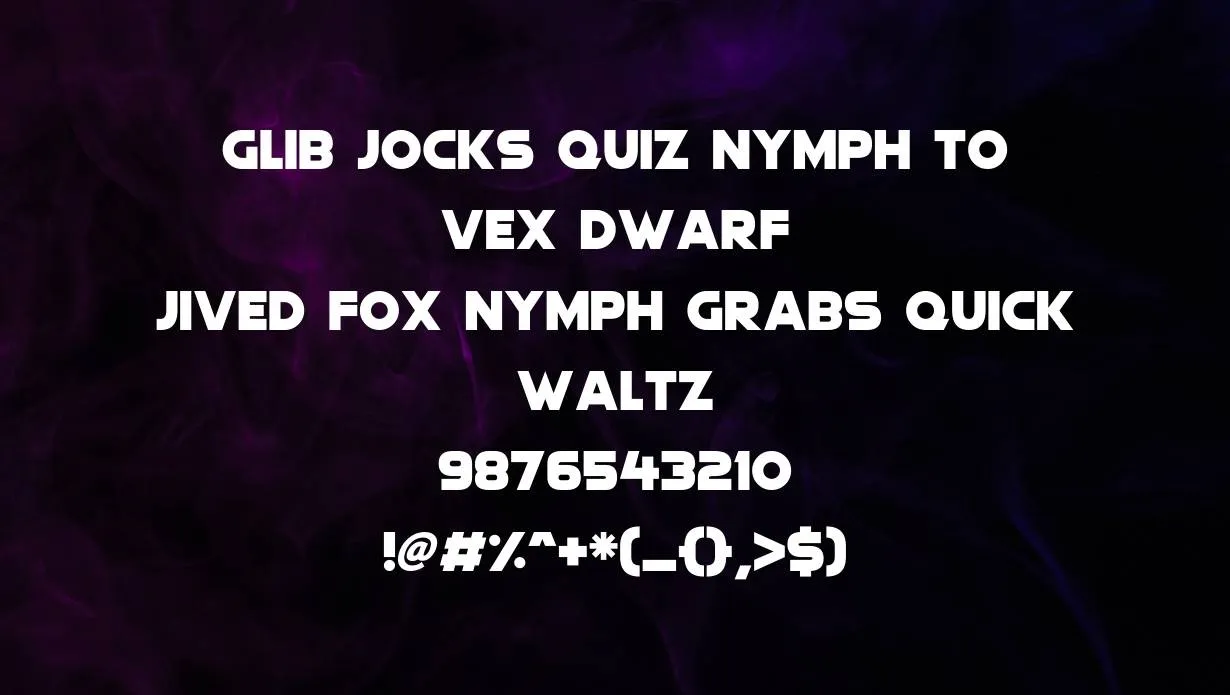
The Quicksilver Font is a popular font that has been used by many designers over the years. The font has a unique look that makes it stand out from other fonts, and it has a history that is interesting to explore.
The Quicksilver Typeface was created by designer Johnathan Barnbrook in 1997. Barnbrook was inspired by the work of German artist Peter Max, and he wanted to create a font that had a similar feel. The Quicksilver Typeface is a sans-serif Typeface, which means that it does not have the decorative elements that many other fonts have. This makes the font very easy to read, and it also gives it a clean look.
The Quicksilver Typeface is also very popular with designers, and it has been used in many different design projects.
Who Used Quicksilver Font?
This font is commonly used in advertising and media. It was created in the late 19th century by an American-type foundry. The name Quicksilver comes from its silver color. This font is also known as Zephyr or Geometric.
Quicksilver has a unique design that sets it apart from other Typefaces. Its thin strokes and sharp edges give it a modern look. Quicksilver is perfect for headlines and other short text. It can also be used for longer blocks of text, but it may be difficult to read. You can also try blueberry sans font a sans serif typeface with the same matching appearance and has a pairing feature with another bunch of typefaces as well.
Quicksilver Font Family Appearance
| Name | Quicksilver Font |
| Designer | Johnathan Barnbrook |
| Style | Sans Serif |
Is Quicksilver Fancy font?
No, Quicksilver is not a fancy font. It is a sans serif font, which means it does not have any decorative features.
Is Quicksilver good for body text?
No, Quicksilver is not a good font for body text. It is a sans serif font, which means it does not have any decorative features.
Yes, you can use Quicksilver font on your flyer. Therefore, Quicksilver is perfect for headlines and other short text.